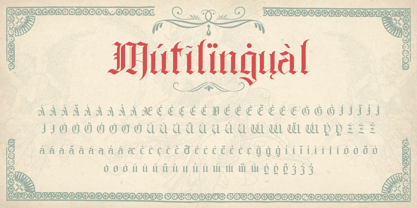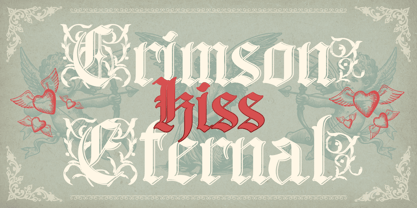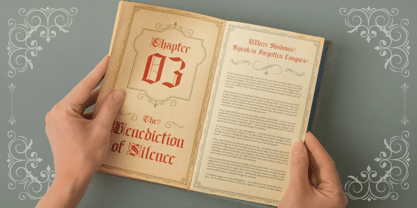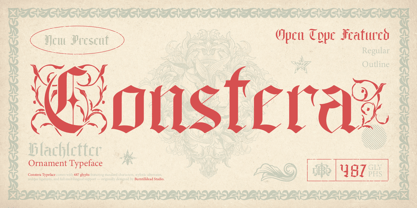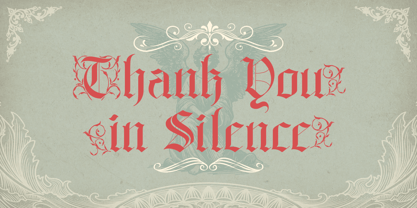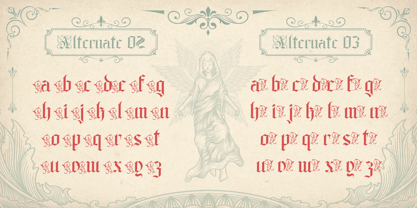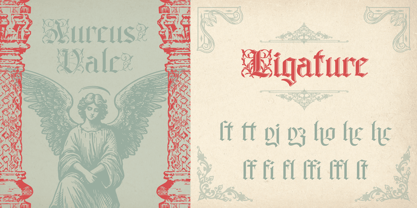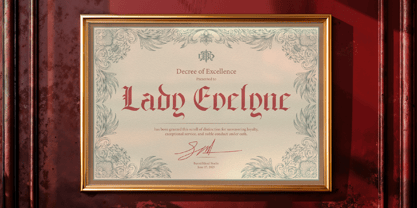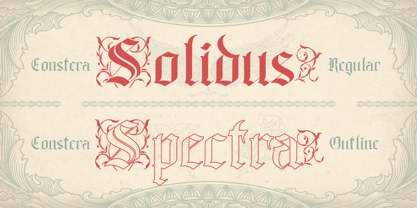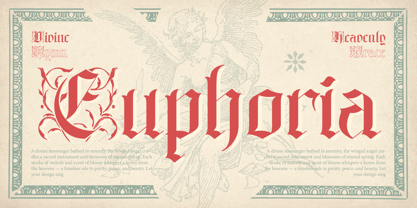
Constera
The Constera Font Family was designed by Eric Kurniawan and published by Burntilldead. Constera contains 2 styles and family package options. More about this family
Proudly present, Constera — an artistic blackletter font with ornamental touches on each letter.
This font brings an elegant yet dark atmosphere, taking you back to the medieval era with a modern and expressive twist.
Aghony comes in two styles: Regular and Outline.
The outline style is perfect for designs that need a lighter look while still keeping a bold visual presence — ideal for posters or large headers.
Perfectly suited for themes like medieval/gothic, tattoo art, metal/hardcore album covers, vintage posters, or occult-inspired visuals.
• Uppercase & Lowercase
• Number
• Punctuation
• Alternate
• Ligatures
• Multilingual